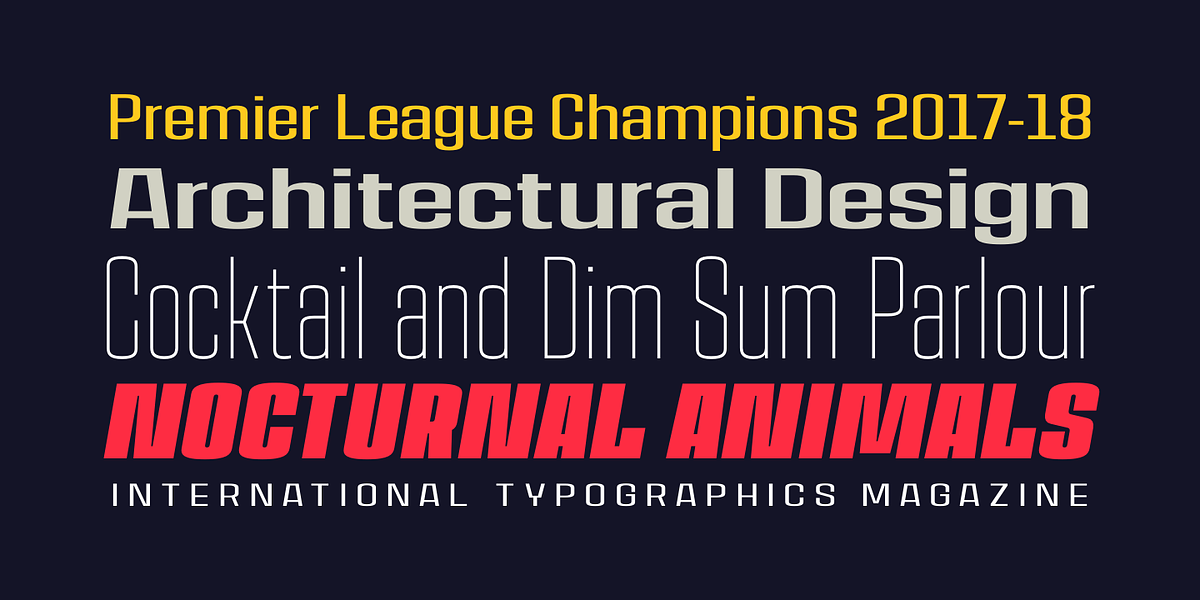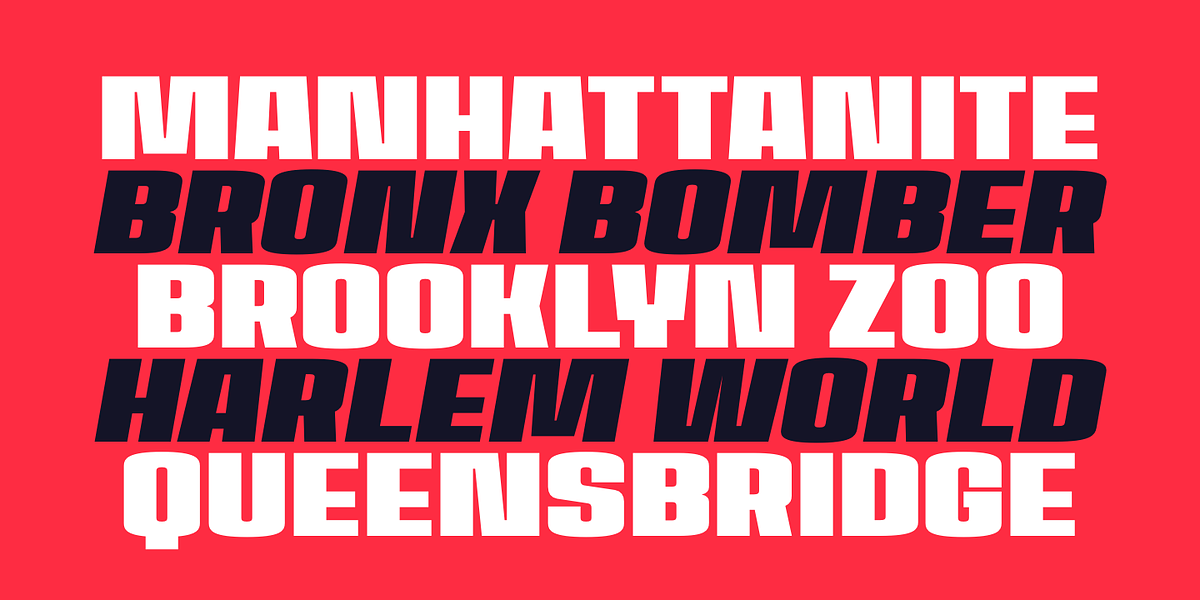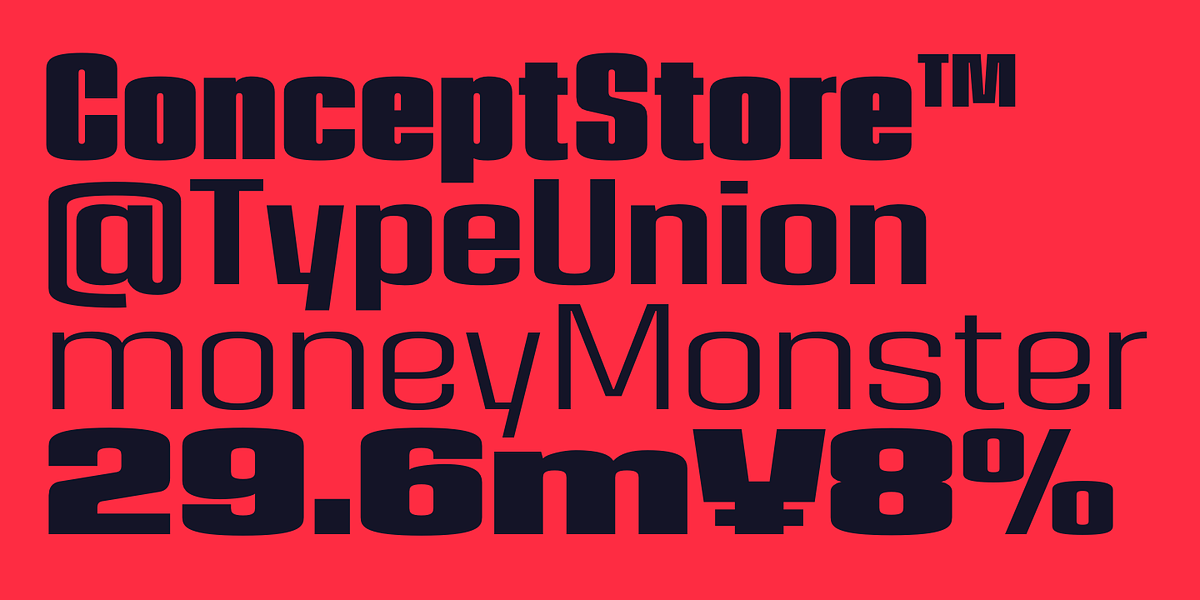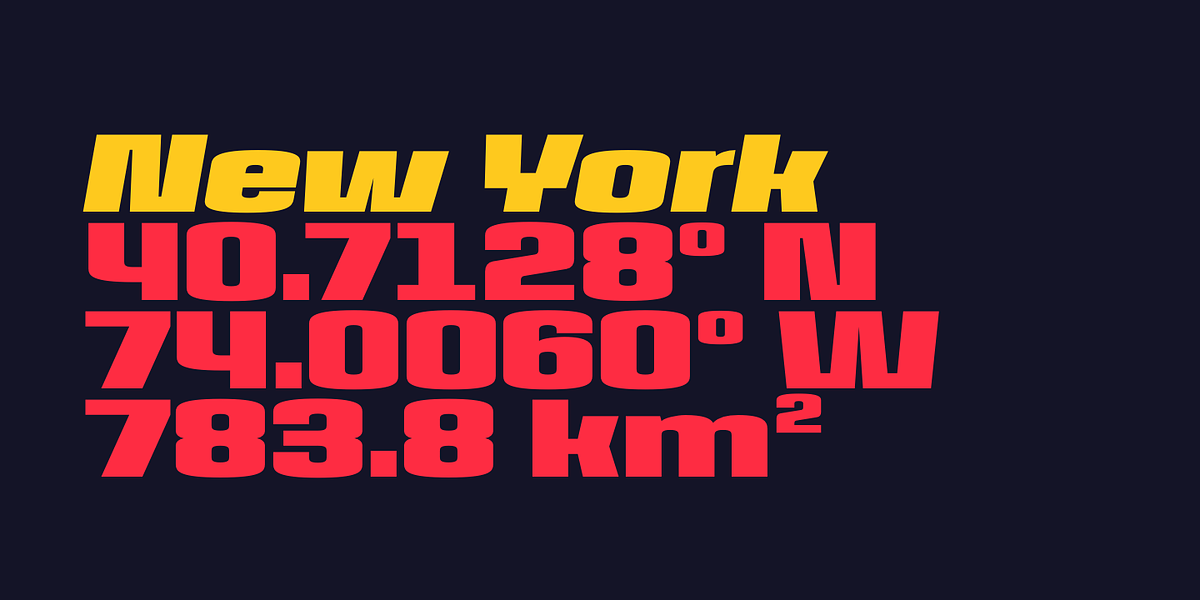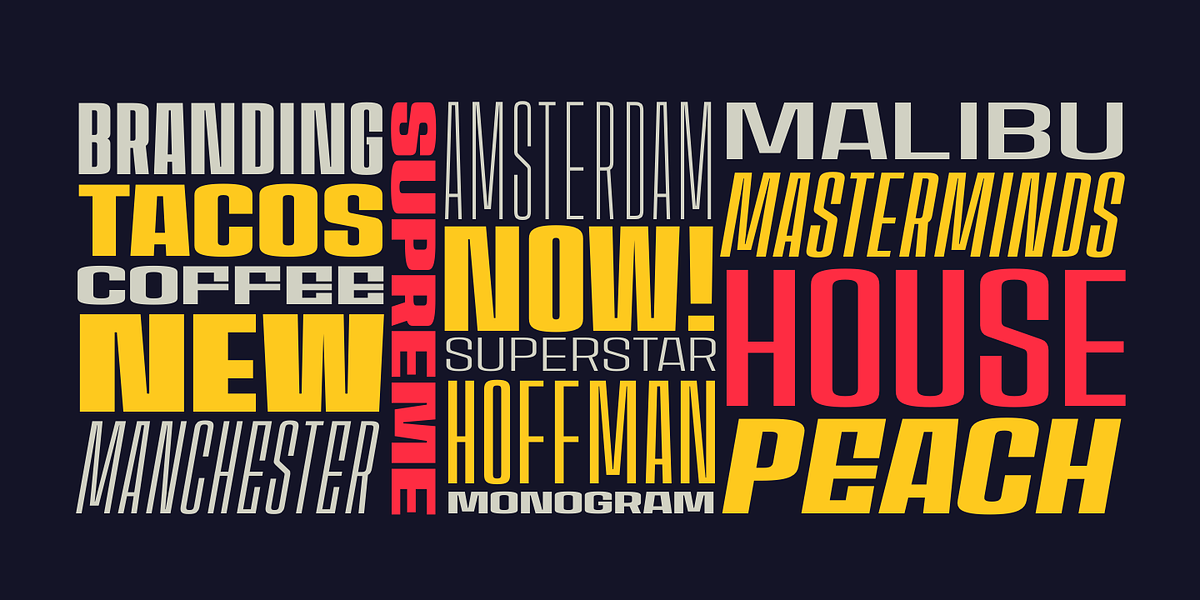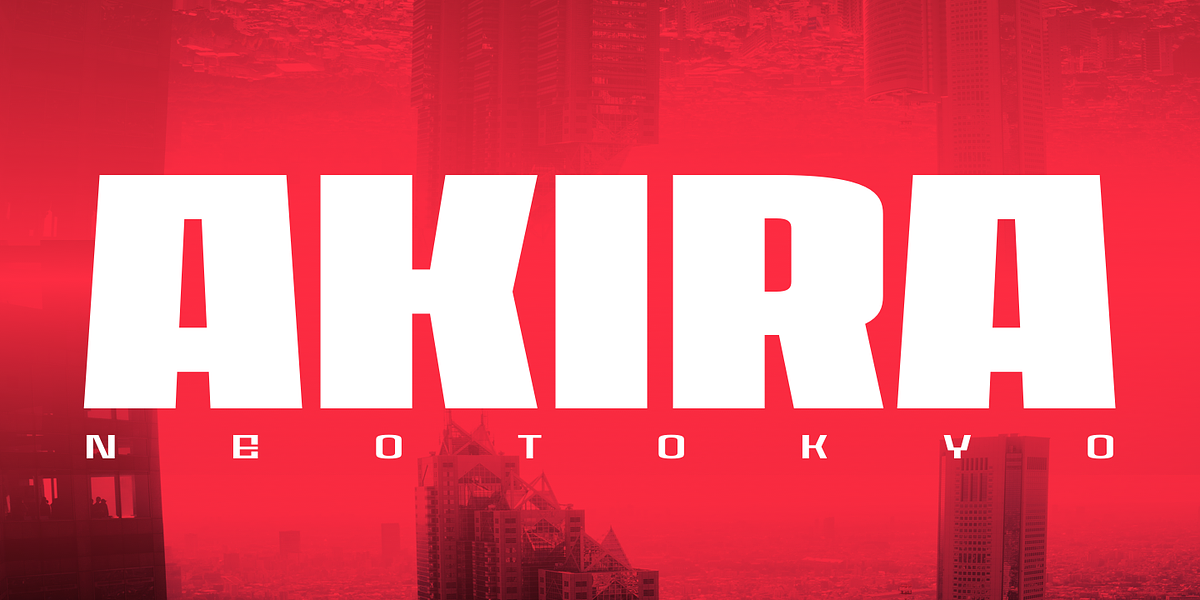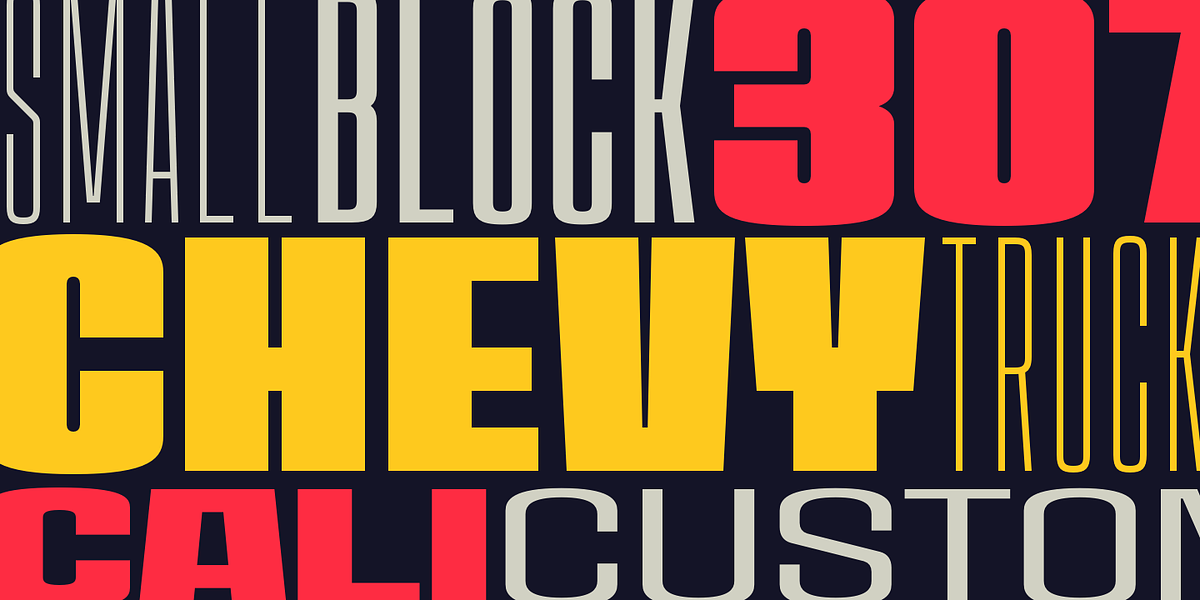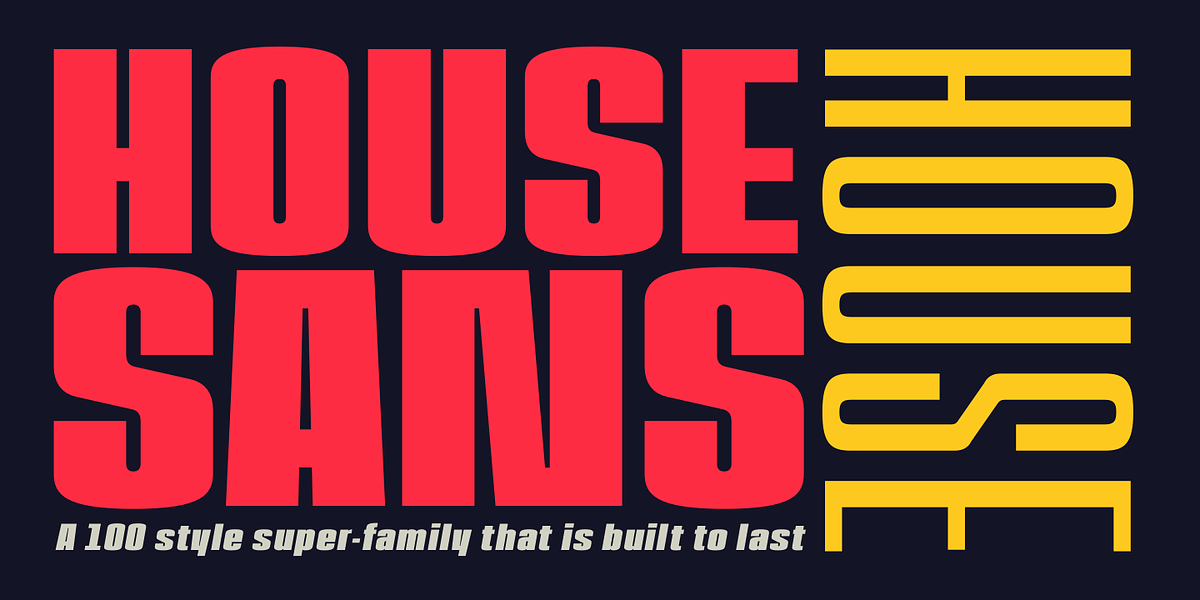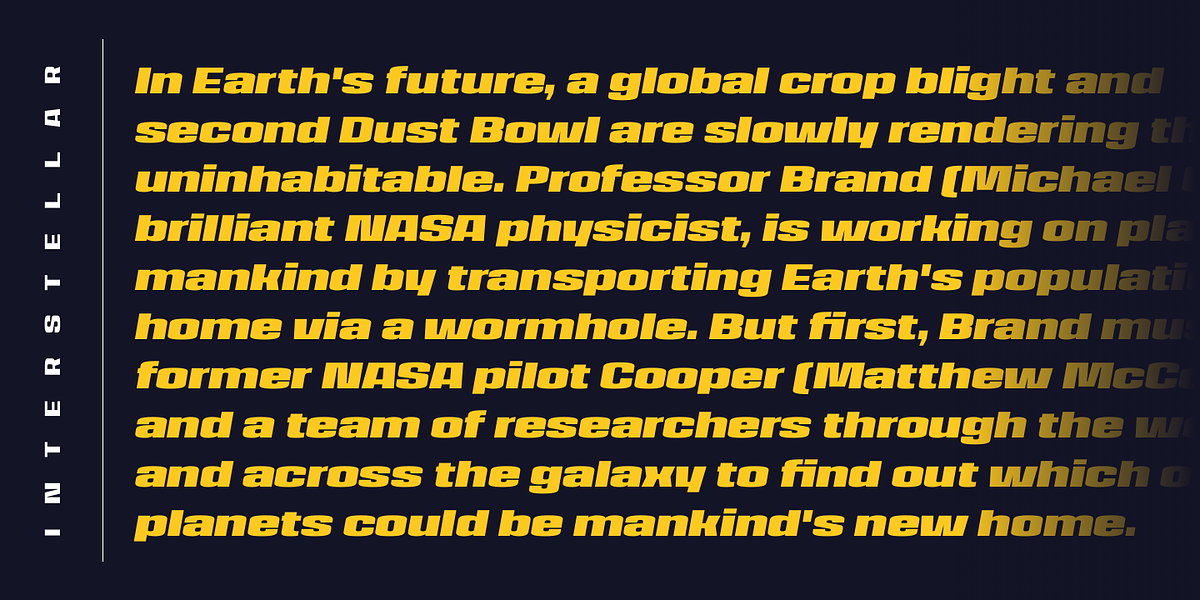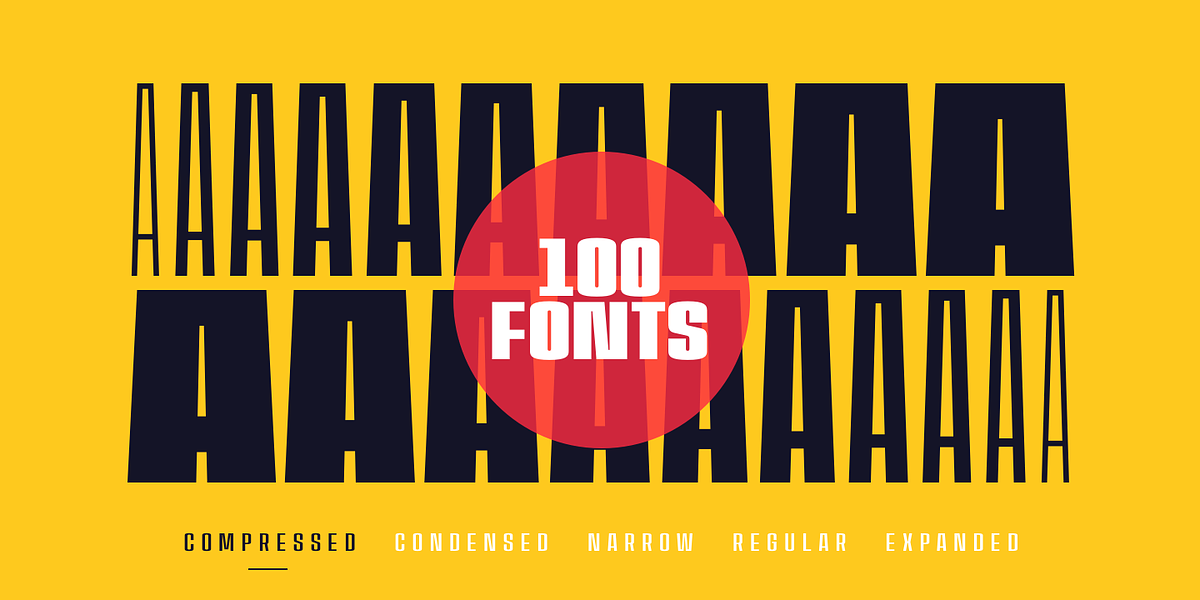
House Sans
House Sans is a comprehensive sans-serif typeface family boasting 100 styles across five widths and ten weights. Its distinct square shape and contrasting horizontal bars lend it a unique visual identity. The compressed styles excel in space-saving applications while the heavy weights command attention. Extensive language support and features like ligatures, superiors, inferiors, and fractions enhance its versatility.